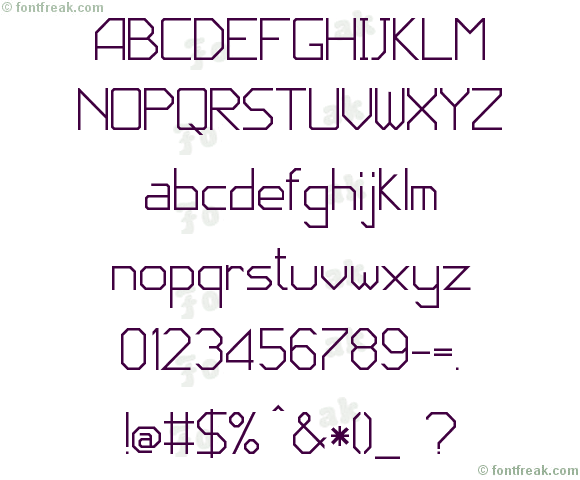
JD Code Regular
JD Code Regular is a captivating sans-serif typeface designed by Jecko Development in 2011. This font embodies a modern aesthetic with its clean lines and minimalistic structure, making it an ideal choice for a variety of design projects. With its uniform stroke weight and subtle contrast, JD Code Regular features a balanced appearance that ensures readability while maintaining an elegant style. The generous spacing between characters enhances clarity, making this font suitable for both digital and print applications.
This versatile typeface is perfect for a range of use cases. Its contemporary look makes it an excellent choice for tech-related branding, such as websites and app interfaces. Additionally, JD Code Regular works wonderfully for marketing materials, including flyers and brochures, where a clean and professional presentation is essential. Small business owners can utilize this font for logo design, creating a memorable identity that stands out. Moreover, content creators will find it ideal for social media graphics, ensuring their posts are both visually appealing and legible.
Targeting graphic designers, small business owners, and content creators alike, JD Code Regular offers a fresh approach that resonates with modern audiences. The font invites creativity while providing a sturdy foundation for any design project.